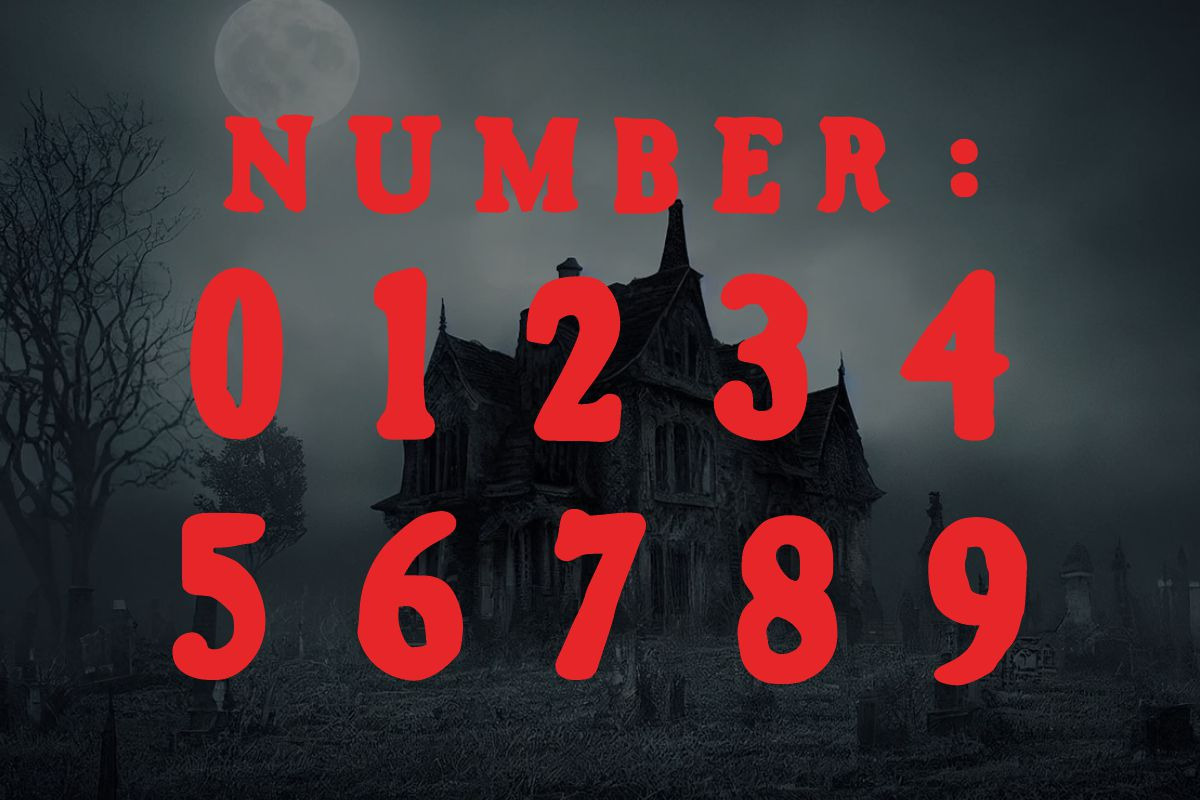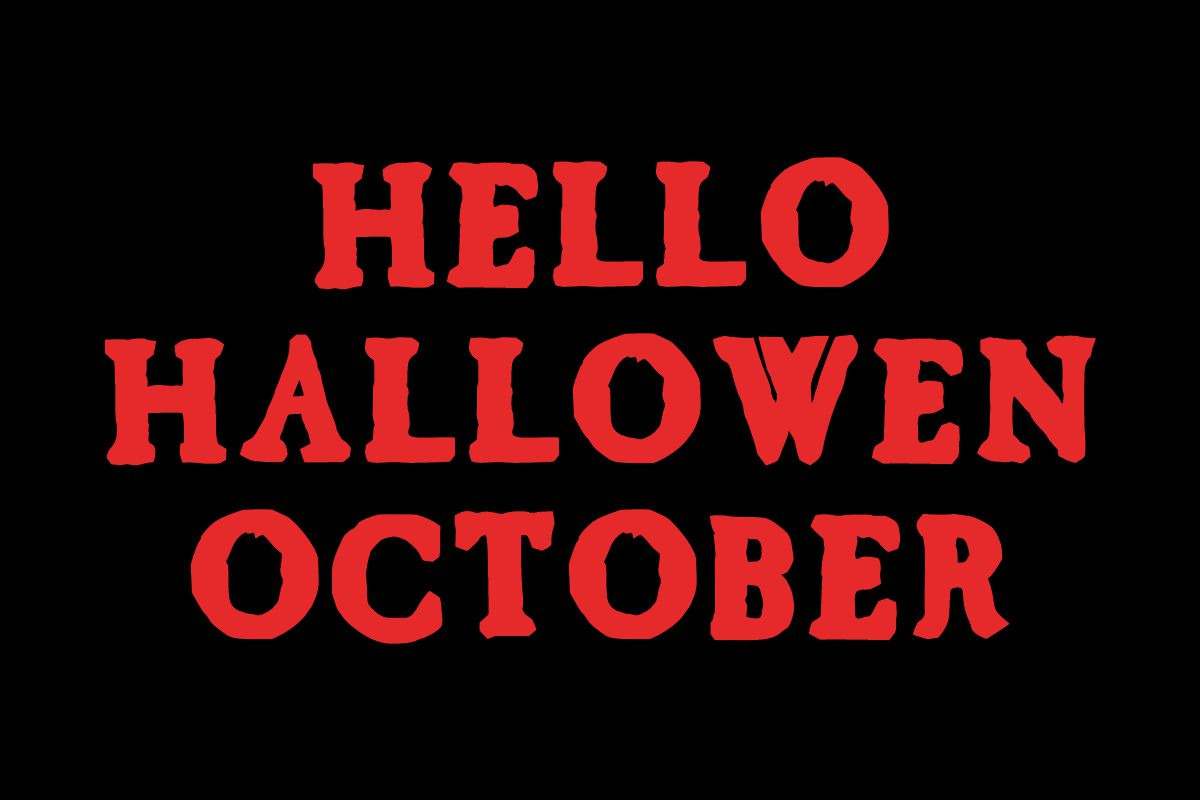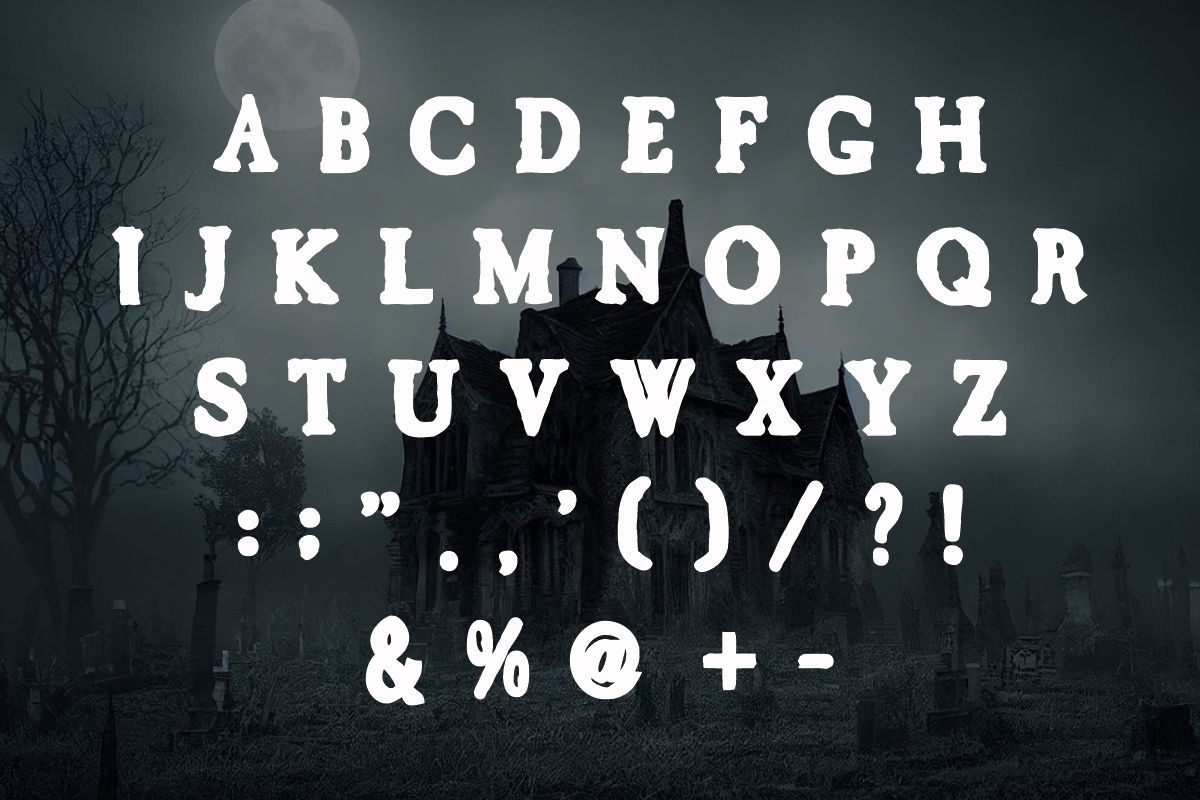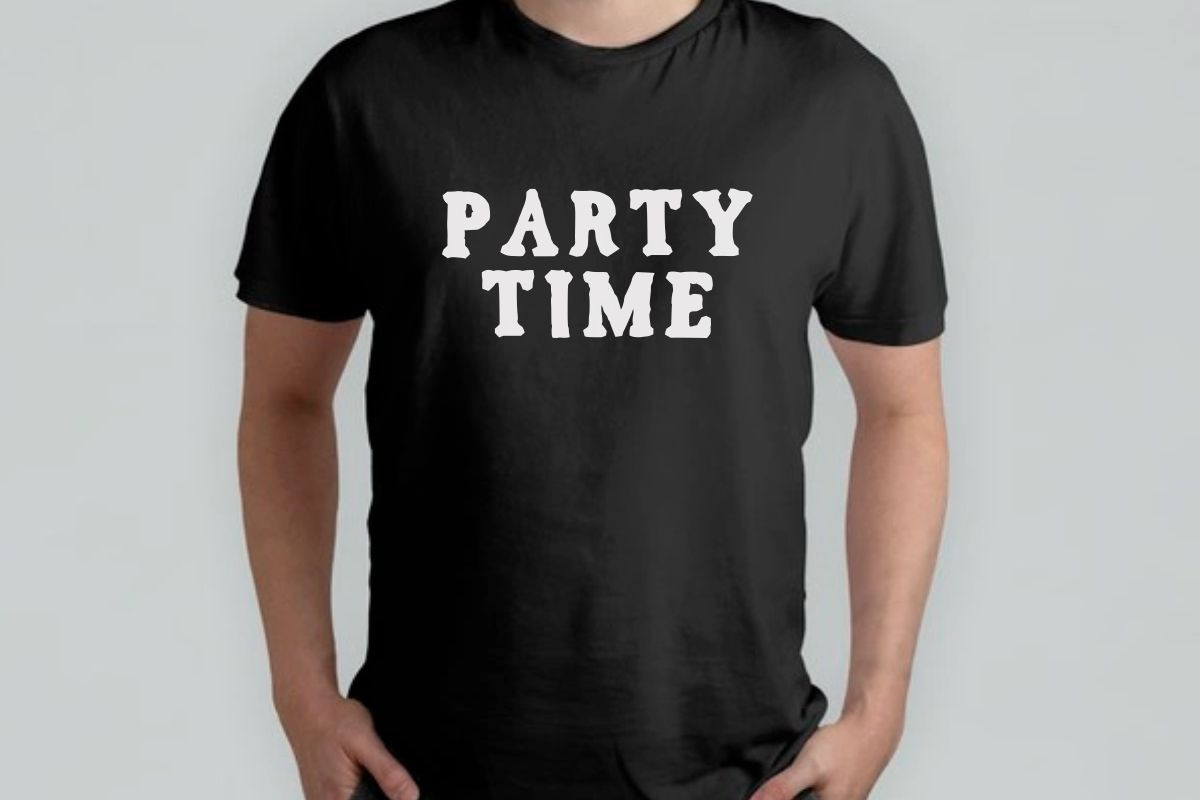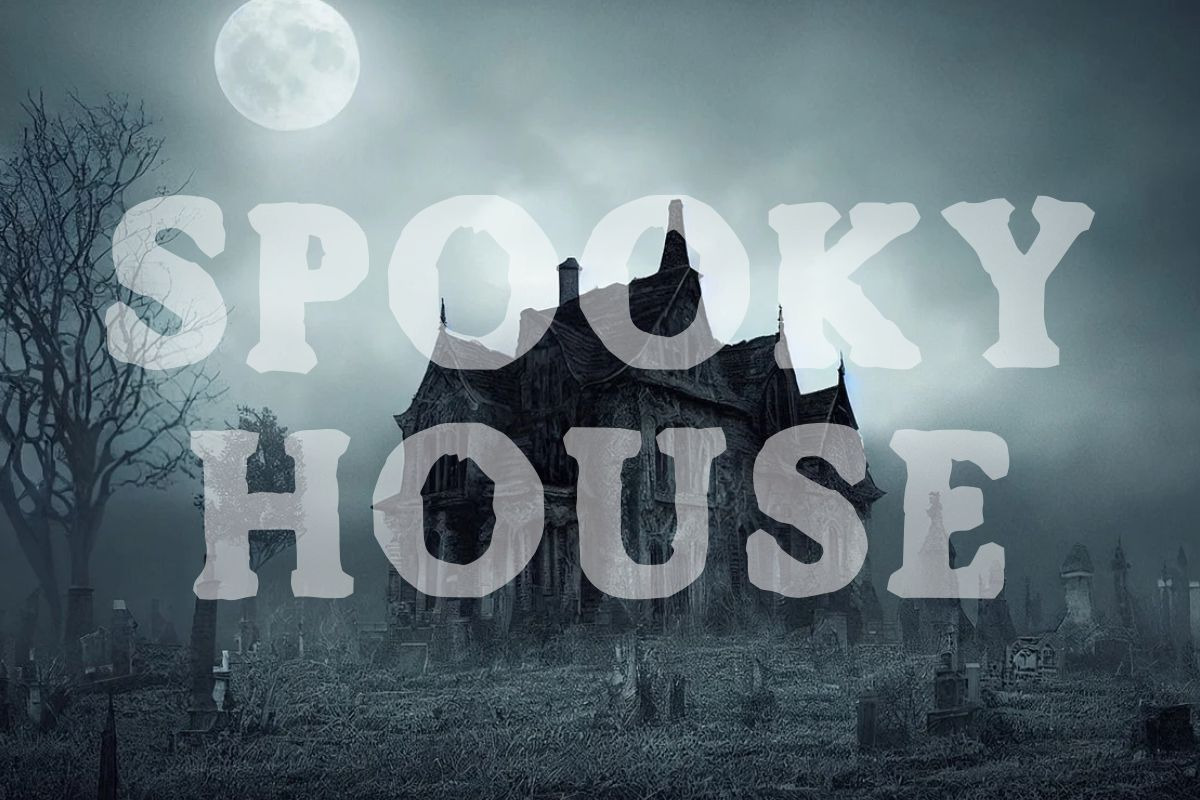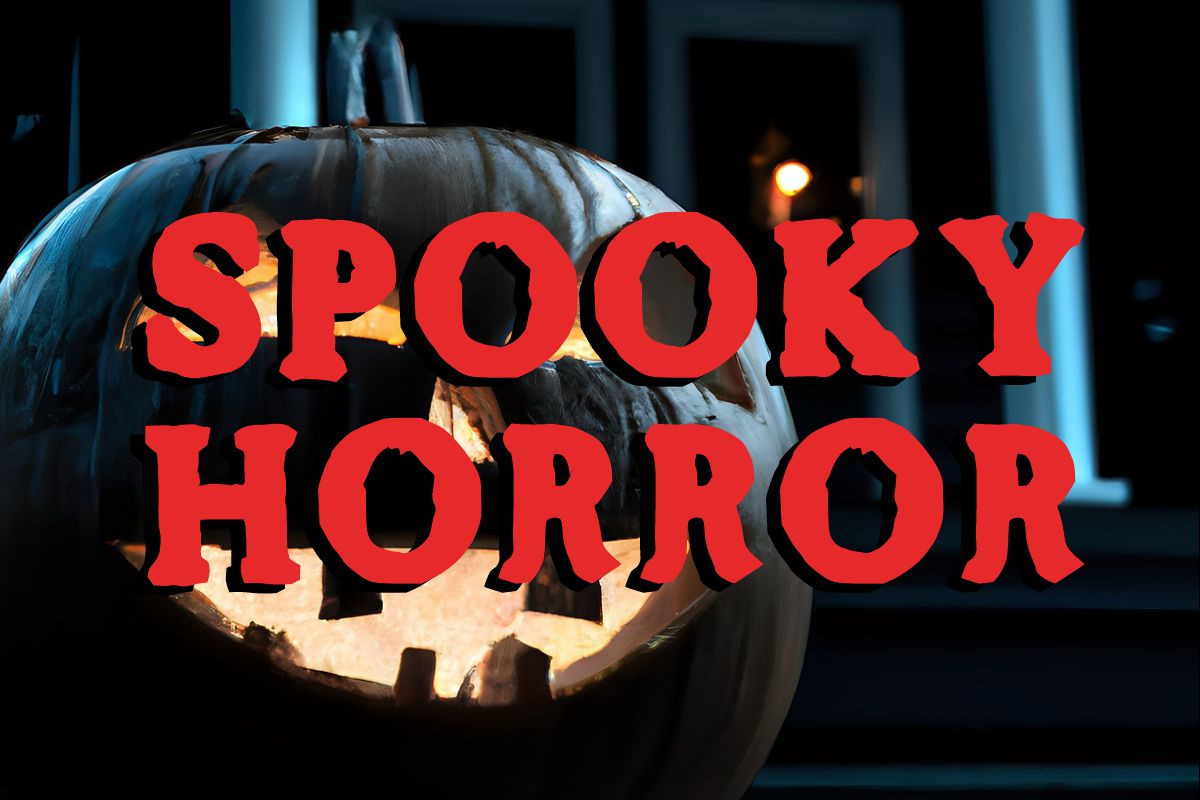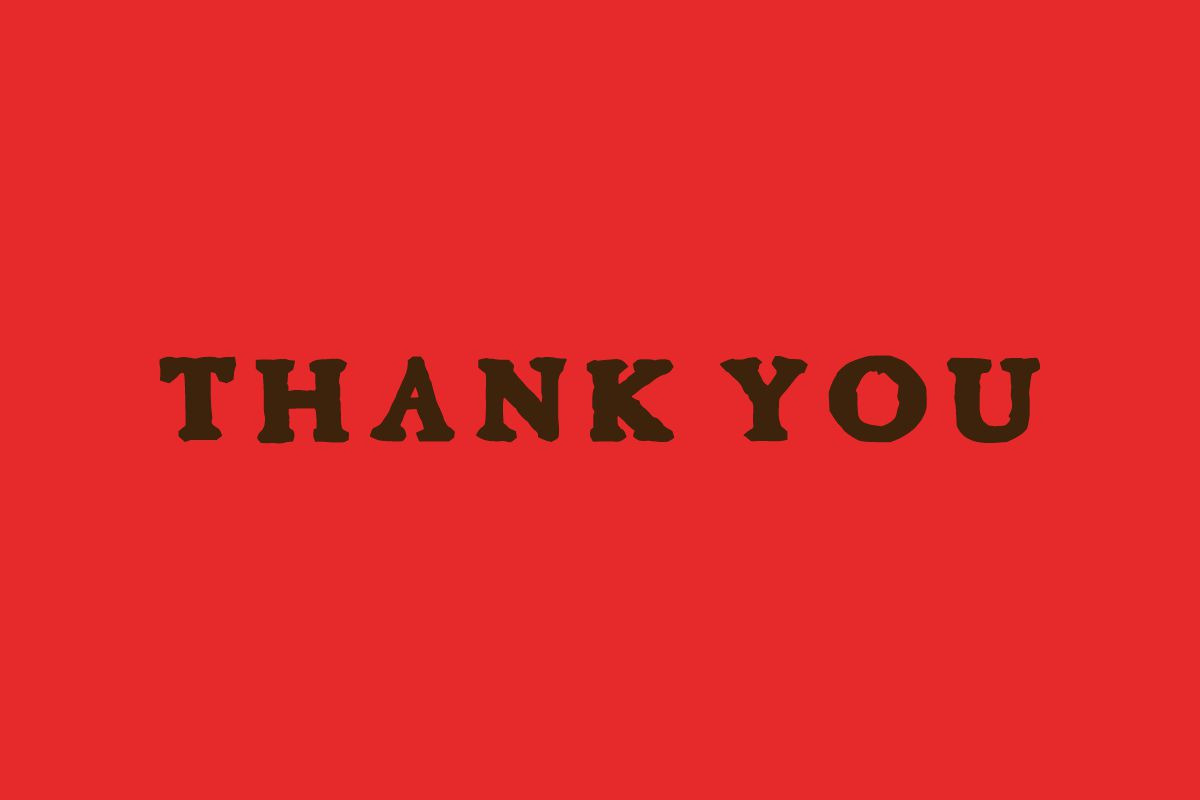
SCARY PUMKIN
SCARY PUMKIN is a fun, Bold and scary display font. You can use it for various projects such as blog posts, logos, branding, ads, invitations, greeting cards, planners, photo albums, decorations, or anything related to Halloween or horror.